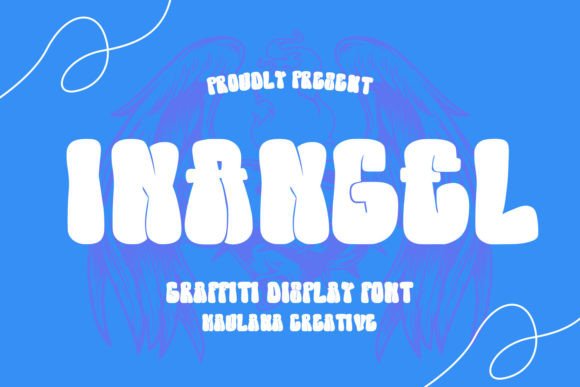
Journey into the realm of creativity with Inangel, the font that ignites your imagination and transforms your designs into masterpieces. This captivating decorative font, crafted by Maulana Creative, is a symphony of bold strokes, playful characters, and a hint of ligatures and alternates, ready to unleash your artistic vision.
Inangel is more than just a font; it's an artistic gateway that propels your designs to new heights. Its bold and expressive nature commands attention, making it the perfect choice for logos that demand to be seen and social media posts that sizzle with personality. Whether you're creating movie titles that evoke intrigue or book covers that whisper of adventure, Inangel is your trusted companion, guiding you towards design excellence.
But Inangel's versatility doesn't stop there. Its charm extends to short texts, where it adds a touch of whimsy and playfulness, and even long texts, where its readability remains impeccable. Pair it with a script or serif font for a harmonious blend of styles, creating stunning works that captivate and inspire.
With Inangel, multilingual support is a breeze, embracing over 100 languages with open arms. Its global appeal makes it a font without borders, connecting with audiences worldwide. Whether you're designing for a local project or embarking on an international adventure, Inangel effortlessly adapts to your linguistic needs.